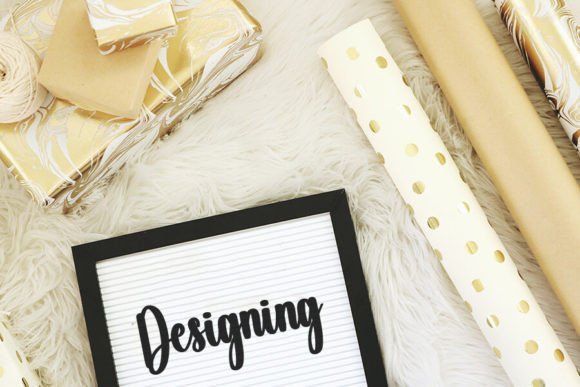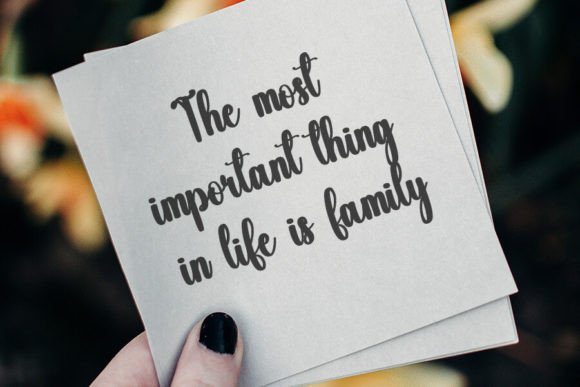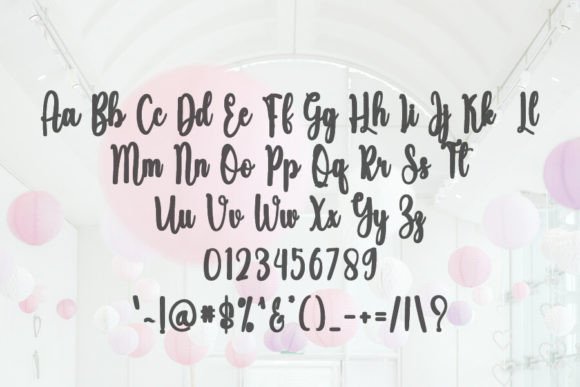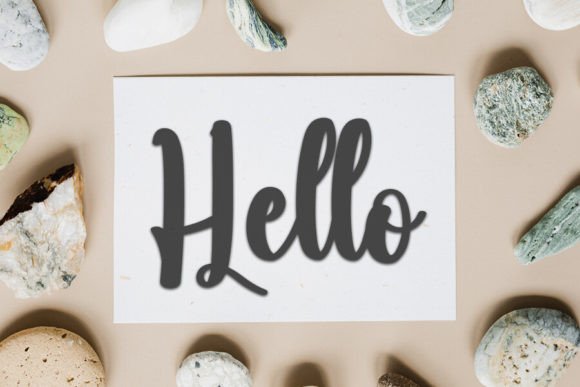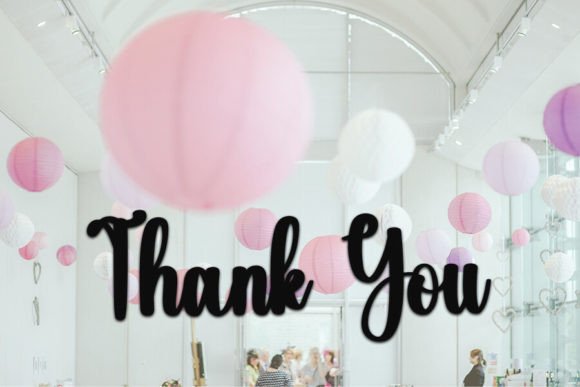
Introduction to Rest Places Font
Have you ever stumbled upon a beautiful font that instantly sparks your creativity? For designers, that moment can be a game-changer. It’s the thrill of discovering a new design resource that elevates your project to the next level. For me, that moment came when I stumbled upon the Rest Places Font, a stunning calligraphy typeface that exudes romance and elegance.
With its delicate dance along the baseline, Rest Places Font adds a touch of whimsy to any design project. Its casual yet sophisticated feel makes it perfect for a wide range of applications, from logos and wedding invitations to t-shirts and signage. As a valuable addition to any designer’s toolkit, Rest Places Font offers a high-quality, free download that’s perfect for both personal and professional projects.
Key Features of Rest Places Font
- Designed to provide a unique and elegant touch to any creative project, making it an ideal choice for designers and artists.
Honest Review: Rest Places Font
As a designer, I’m always on the lookout for high-quality design resources to elevate my creative projects. Recently, I stumbled upon the Rest Places Font, and I must say it’s a great addition to my design arsenal.
Here are the things that work well: ✨
- High quality: The font is well-designed and looks professional, making it perfect for a wide range of creative projects.
However, there are a few limitations: ⚠️
- Limited character set: The font only includes a limited character set, which may not be suitable for projects that require a wide range of characters.
- No bold or italic variations: The font only comes in a regular weight, which may not be ideal for projects that require bold or italic text.
Overall, I’m impressed with the Rest Places Font. While it has some limitations, its high quality and transparent background make it a valuable addition to any designer’s toolkit.
The Rest Places Font is a high-quality, free download design resource ideal for creative projects that require a unique and elegant touch. With its transparent background, this font can be easily incorporated into various design platforms.
Tips for Getting the Most Out of Rest Places Font
Some tips for getting the most out of the Rest Places Font include:
- Combine the Rest Places Font with other design elements to create a unique and visually appealing design.
- Use the font in a variety of creative projects, such as business cards, brochures, and website designs.
Alternatives to Rest Places Font
Can I use the Rest Places Font for web design?